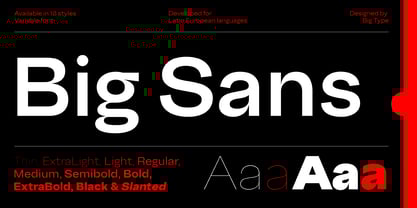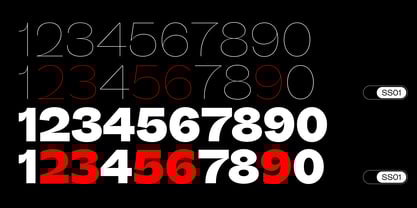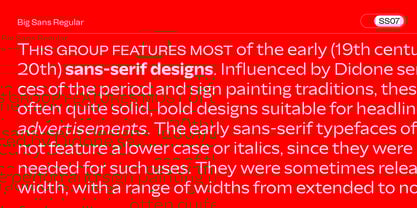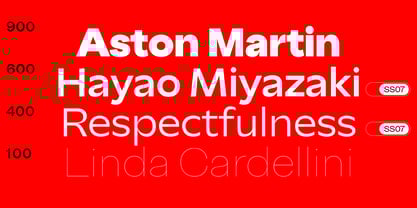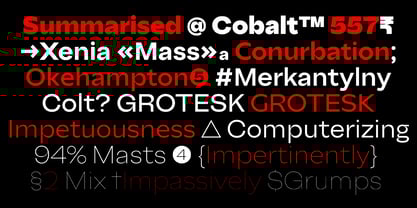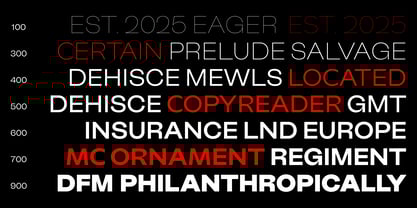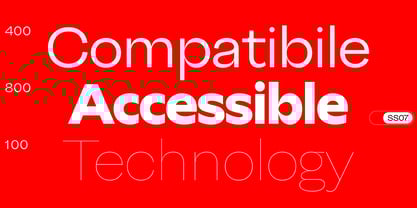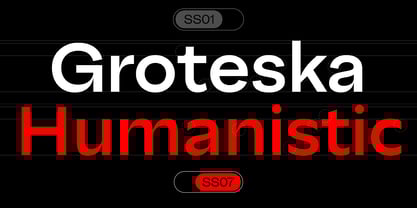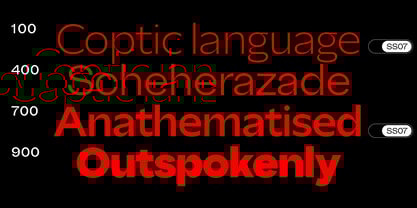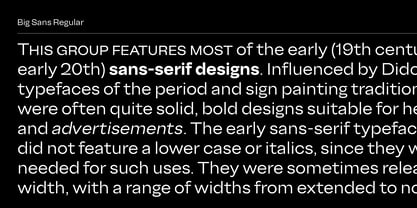
Big Sans
by Blaze Type
The Big Sans Font Family was designed by Karol Mularczyk and published by Blaze Type. Big Sans contains 18 styles and family package options. More about this family
Big Sans is a contemporary sans serif with two distinct voices — one grounded in the precision of grotesques, the other shaped by the warmth and rhythm of humanist forms. Its default style is clean, functional, and rooted in mid-century modernism, while subtly drawing structural inspiration from geometric sans serifs — resulting in a balanced, versatile texture. Activate stylistic set 7, and the tone shifts entirely: terminals become vertically cut, proportions more fluid, and the overall feel more human. This dual nature makes Big Sans especially adaptable — capable of switching from editorial subtlety to expressive branding with ease. Sharp, high-contrast internal cuts inject a bold, graphic quality that gives the typeface its modern edge. With 9 weights ranging from Thin to Black, each paired with a matching Slanted style, Big Sans offers the flexibility needed for everything from dense text to powerful headlines.
Designers: Karol Mularczyk
Foundry: Blaze Type